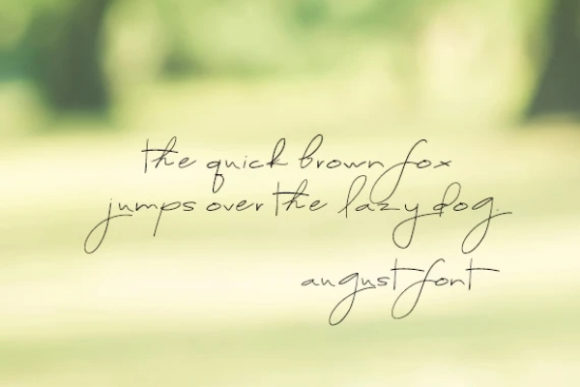
The Magic of August Font: Elevate Your Designs with Elegance
I’ll never forget the time I was working on a DIY project for a friend’s wedding invitation. I had the perfect design concept, but I just couldn’t find the right font to bring it all together. The invitation needed to be elegant, yet playful; sophisticated, yet approachable. That’s when I stumbled upon the August font, and it was love at first sight! 💕
August is a magical handwritten font that has a touch of elegance, making it perfect for a wide range of creative projects. In this article, we’ll dive into the world of August font, exploring its features, how to use it, and what makes it so special.
An Honest Review of August Font
What I Love About August Font ✨
- 💫 Elegant and sophisticated, yet approachable and playful
- ✅ Highly versatile, suitable for various design projects, from Instagram posts to calligraphy scripts
- 🎨 Beautifully crafted with a touch of magic, making it perfect for creative and artistic projects
- 📚 Extensive character set, including OpenType features, glyphs, and stylistic alternates
- ⚠️ Some users might find the font a bit too ornate for very simple designs
- ⚠️ Limited use of uppercase letters, which might not be ideal for all design projects
The Backstory of August Font
August font was created by a talented designer who wanted to craft a font that would bring a touch of magic to everyday designs. The designer drew inspiration from traditional calligraphy and handwriting, combining elegant lines and curves with a playful and approachable feel. The result is a font that’s both sophisticated and fun, perfect for a wide range of creative projects.